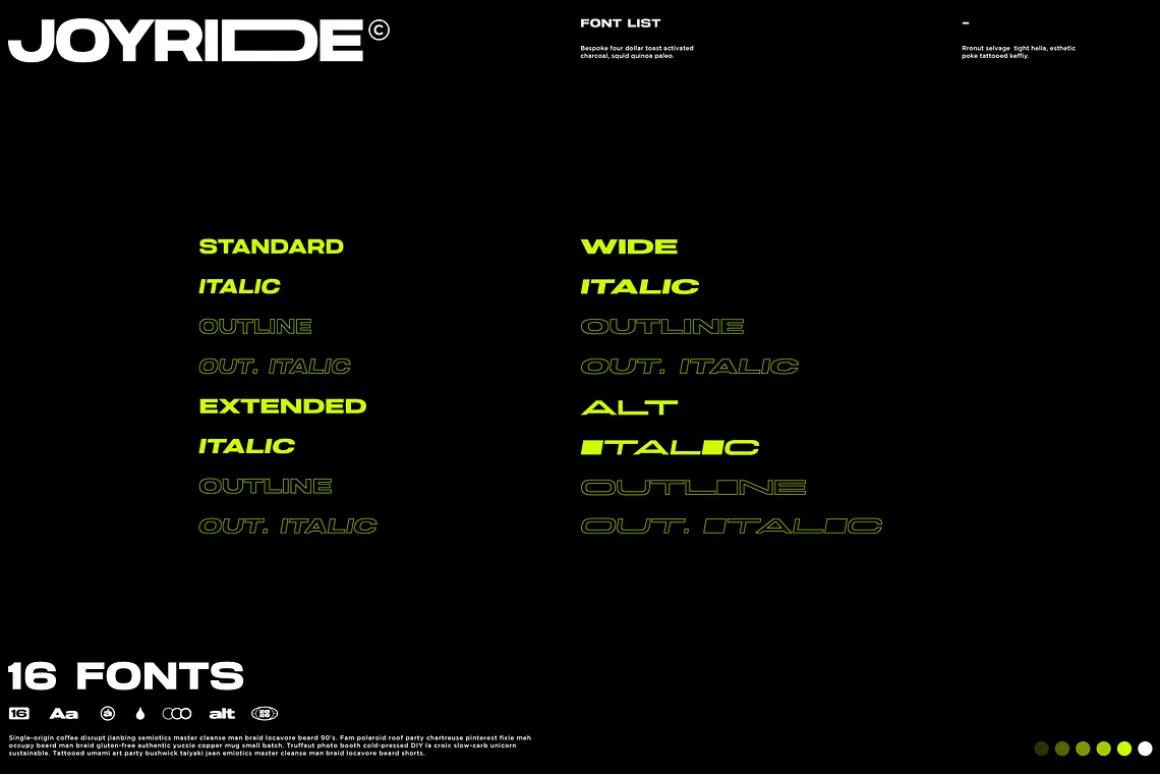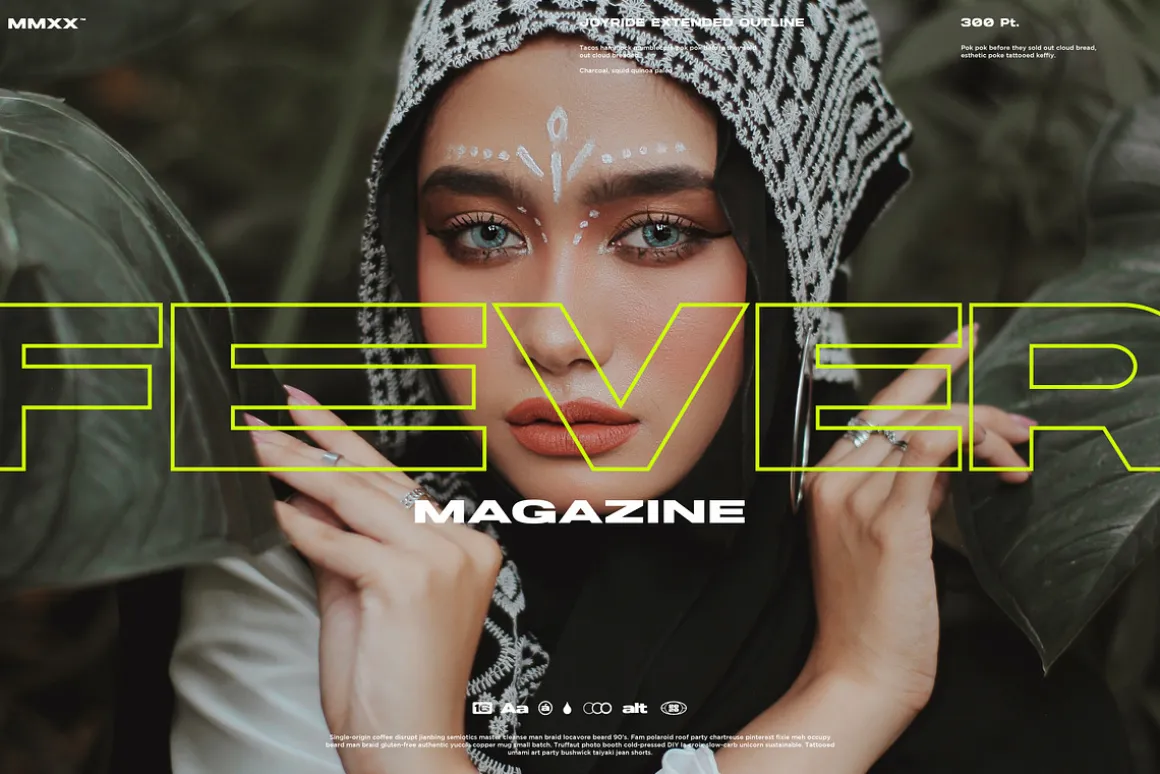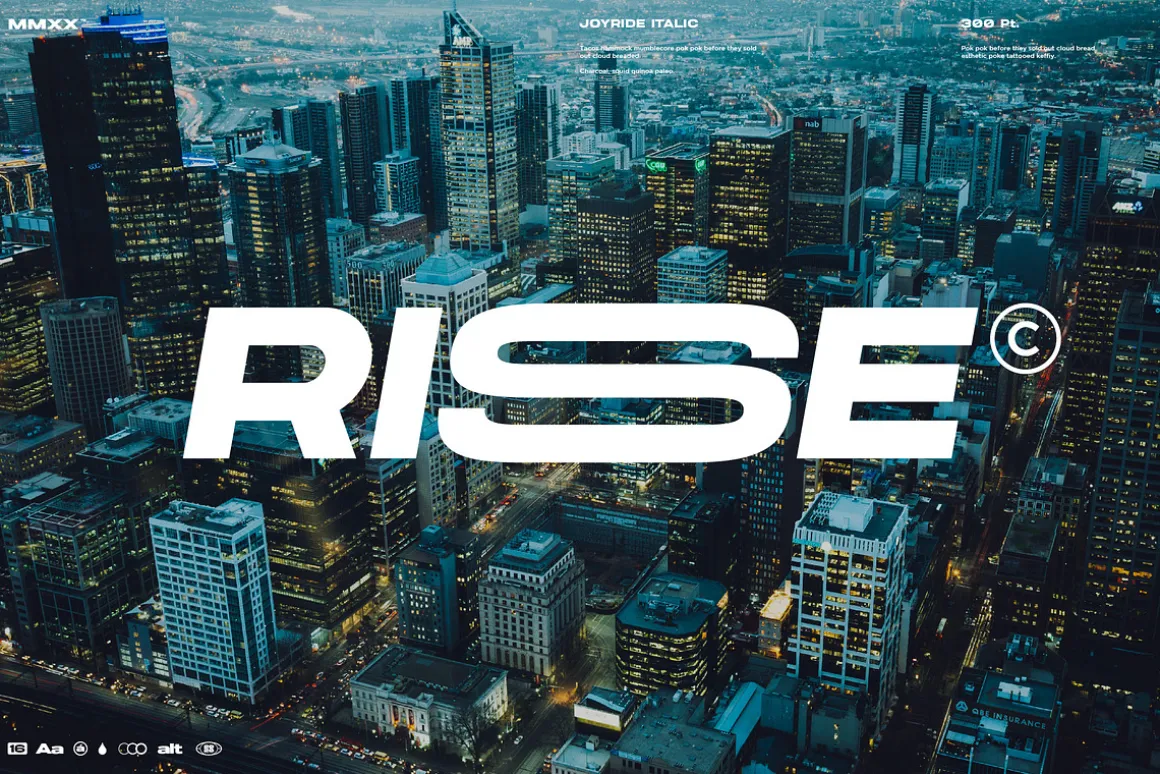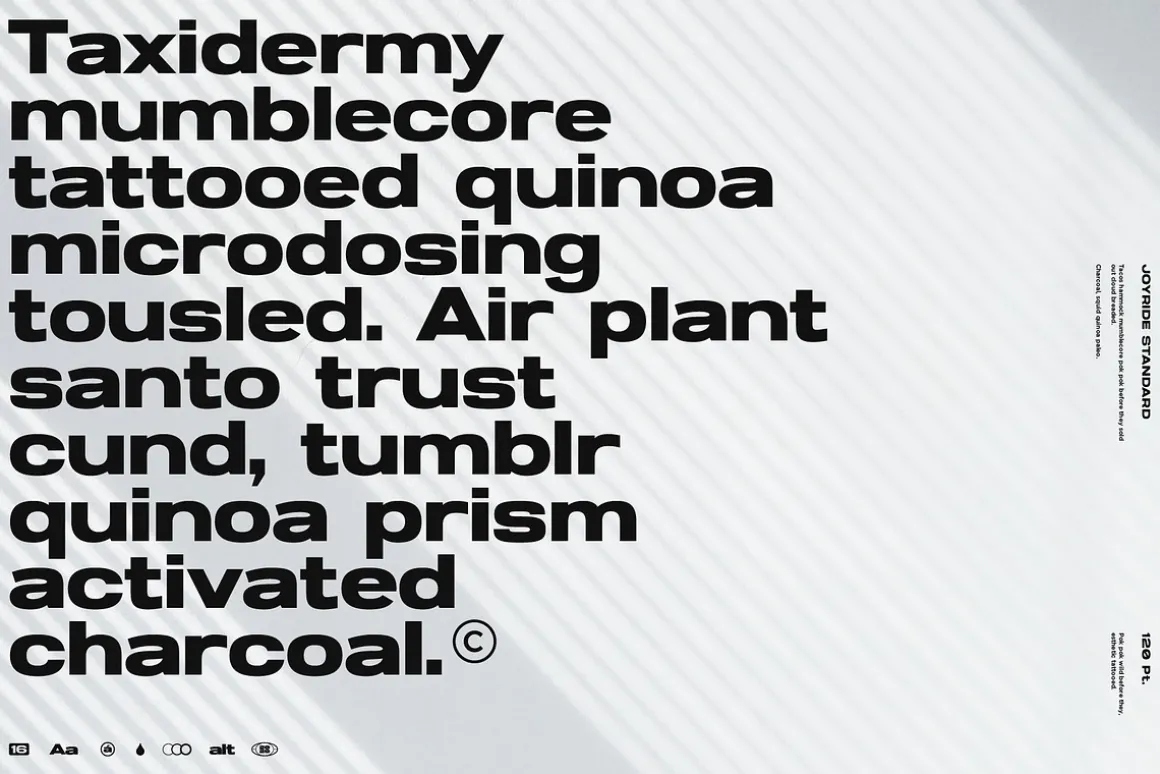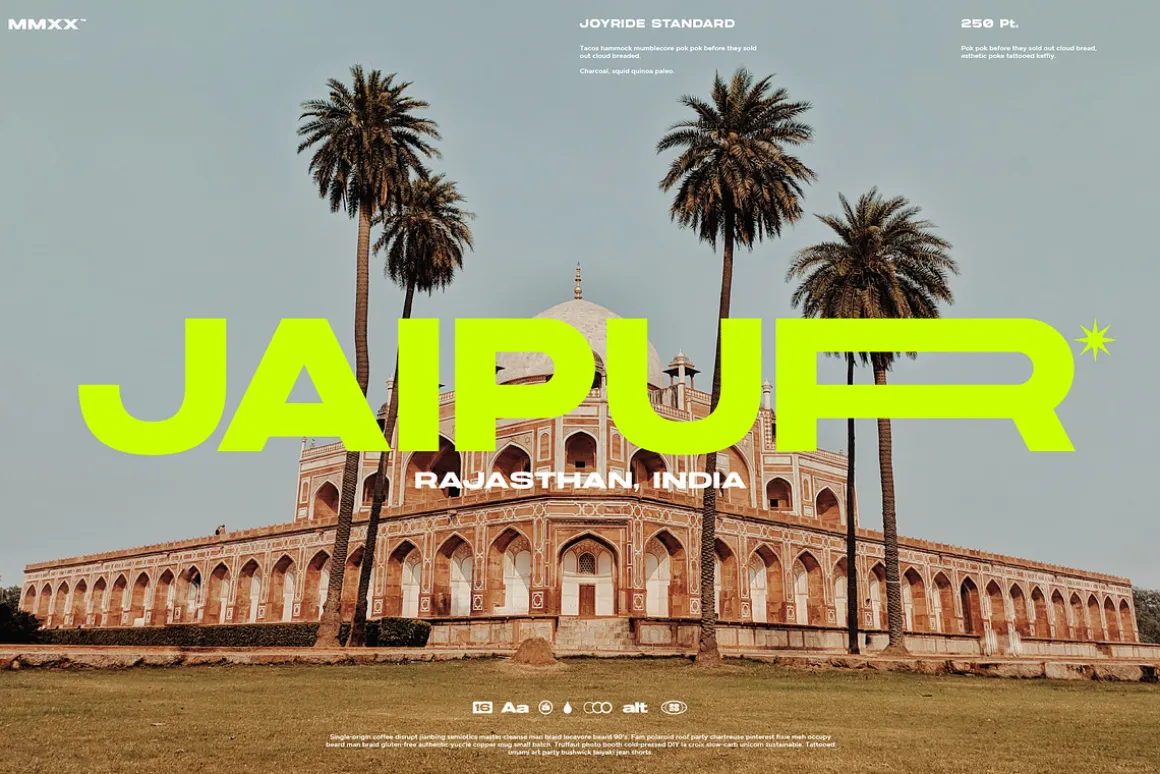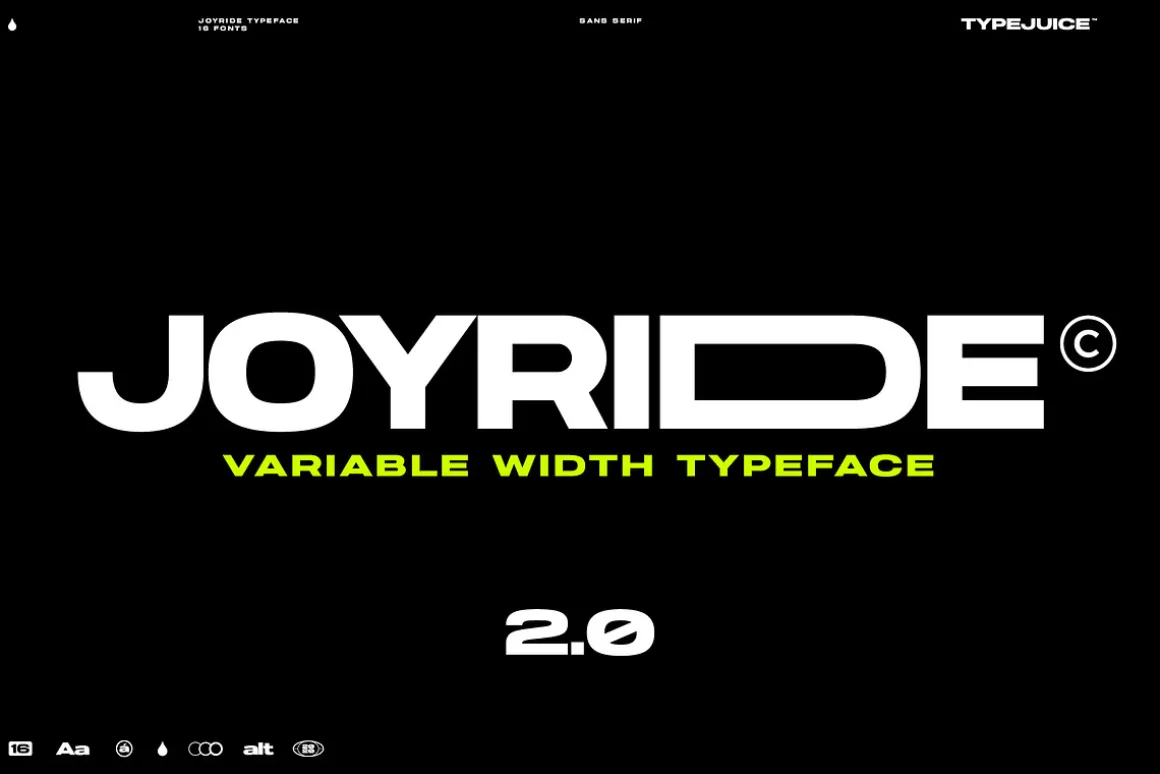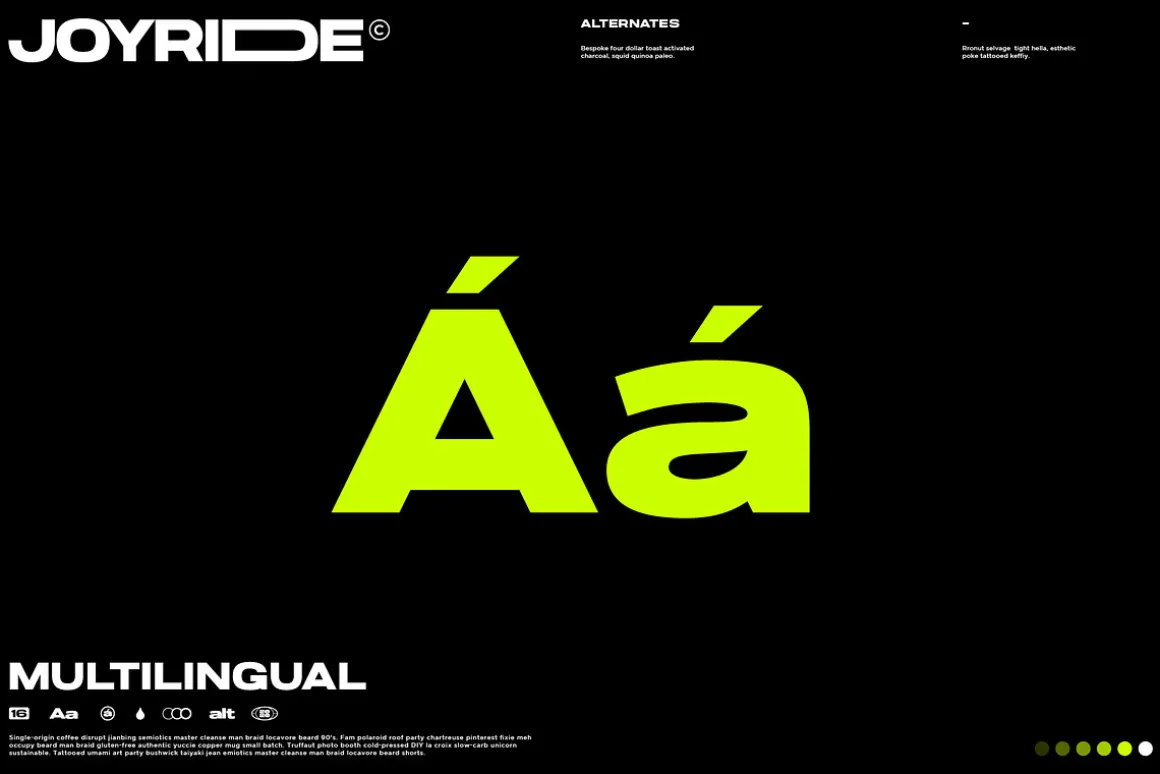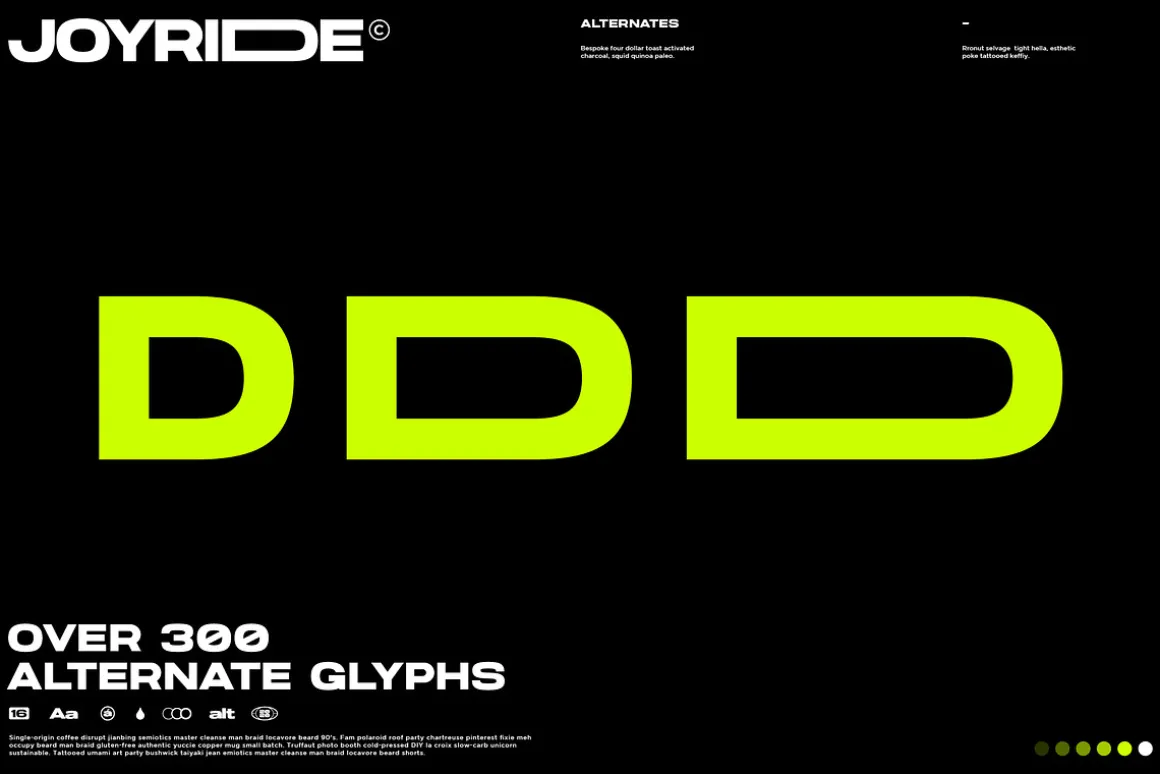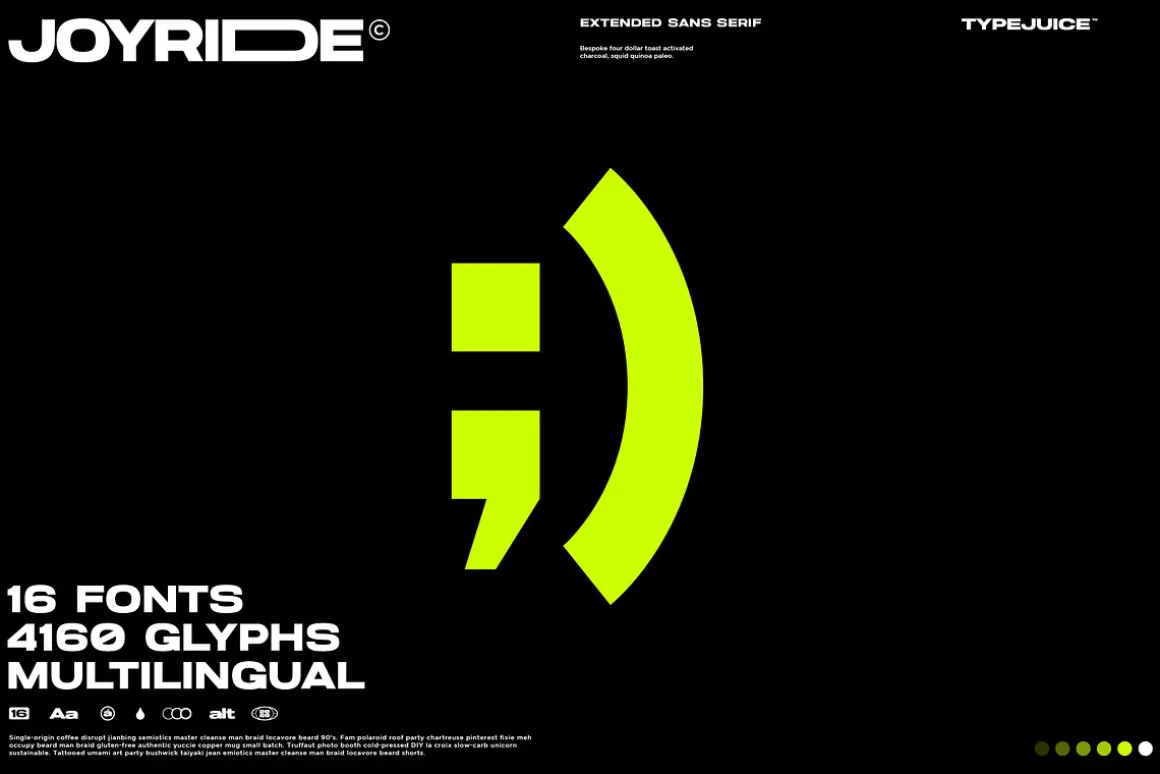
Joyride is an extended varible width sans serif typeface. The family includes 16 fonts in a variety of weights and styles. There are over 300 alternate glyphs with variable widths to allow for endless customization and creative control.
- 16 fonts total
- 4 font styles
- Upper / lowercase glyphs
- Multilingual
- Over 4000 glyphs